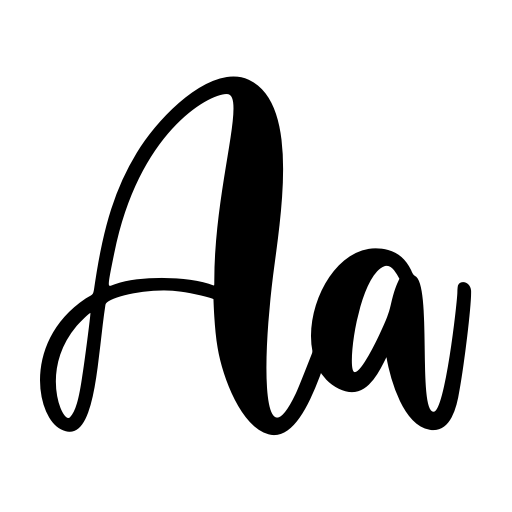
Bristle Font is a lively and expressive script typeface with a hand-drawn feel, featuring playful, flowing letterforms and a casual yet elegant style. Its moderately high contrast strokes and smooth curves make it ideal for creative projects like invitations, branding, and headlines where a personal, artistic touch is desired. This font works especially well in settings that need a friendly, approachable vibe without sacrificing sophistication.
Bristle Font
About Bristle Font
| Font family | Bristle Font |